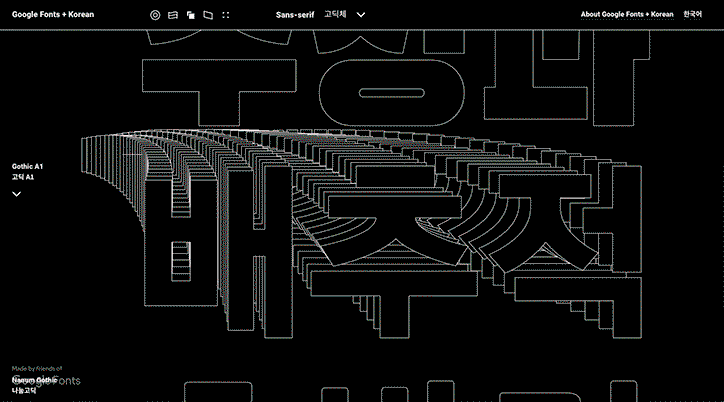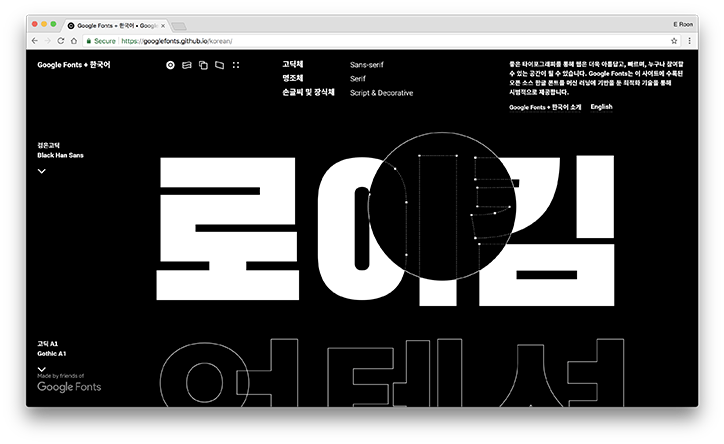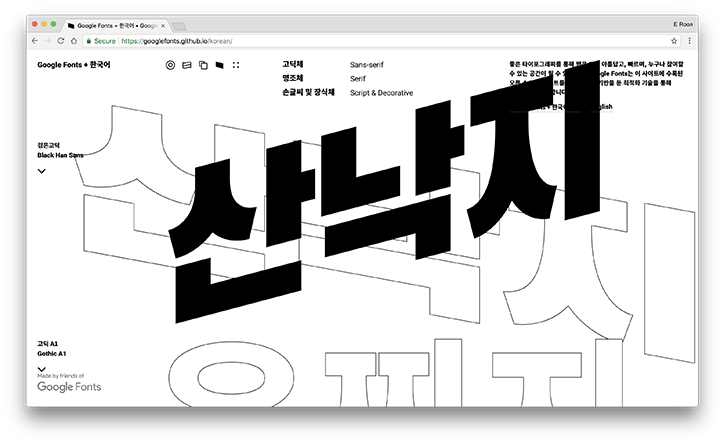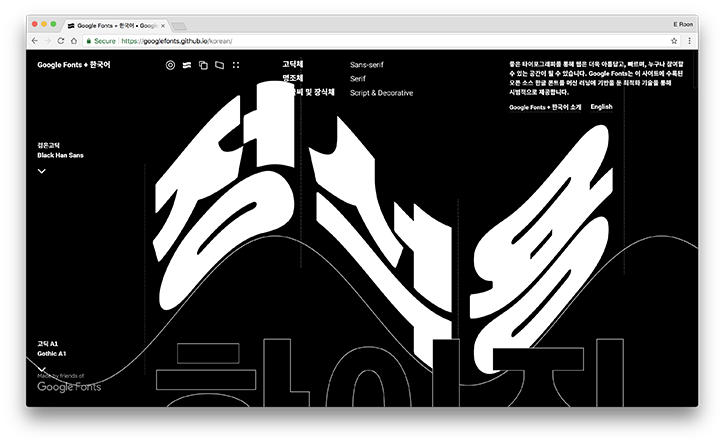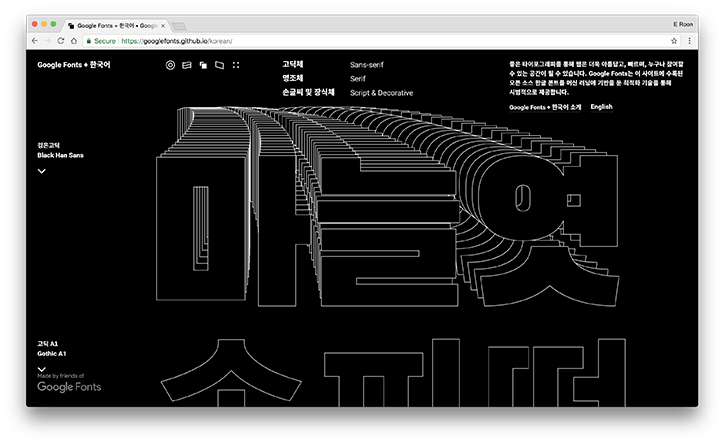
Google Fonts Korean becomes interactive by manipulating path data
Initially launched in 2010, Google Fonts is an online collection of fonts available for designers and web developers to embed on their websites, for free. Until very recently, the collection was unable to support Korean. However, Google has now devised a more efficient means of serving Chinese, Japanese and Korean (CJK) font files, which have very large character sets, resulting in large file sizes.
The Korean alphabet, Hangul, has been used since the 15th century and consists of 19 consonants, which reflect the shapes of the articulators when making the sounds, and 21 vowels, evolved from three shapes representing the sky, the earth and humans. These elements, called jamo, can then be grouped into syllabic blocks which form the letters.
In a similar manner to Chinese letters or Japanese kana, the visual balance of a jamo changes in relation to its surrounding jamo. To enable this, a Korean font usually includes every possible combination of jamo, meaning it would contain a total of 17,388 glyphs. As well as being time-consuming to develop typefaces consisting of this many glyphs, it also results in large file sizes. “For example,” reads the Google Fonts Korean website, “Google is developing the Noto fonts to support all languages, and while the Noto Latin font is 445KB, the Noto Simplified Chinese (SC) font is 15.7MB, containing a total of 44,683 glyphs.”
However, by developing a new technique which sees it scanning Korean web pages, Google was able to ascertain which characters are most likely to appear together. This informed a “subset slicing strategy” which sorts the 17,388 glyphs into around 100 slices. This means when a user sees the font on a webpage, the browser will only load the font slices required for that page, resulting in much faster loading times. In order to showcase this fact, Google got in touch with E Roon Kang of New York City-based design studio Math Practice, to create a mini-site.
Roon worked with Seoul-based data visualisation specialist, Wonyoung So, on the development of the site but the team also included Yang Jang who curated the fonts, Guhong Min, the site’s Korean editor and Hannah Son, its English editor.
Designed in monochrome, the site features the supported fonts, which, as well as being editable to display any text is interactive via a series of mouse movements and clicks. “I wanted the site to be an interactive experience, as opposed to a simple list of available Korean fonts from Google Fonts,” Roon tells It’s Nice That. As all of the featured fonts are open-source, “it was possible to have full access to manipulate their path data – gaining access to a commercial font on this level is usually prohibited through their End User License Agreement.” Roon, therefore, decided to showcase the high levels of access possible through Google Fonts.
Whereas some of the interactions highlight this accessibility, others hint at the pragmatic aspects designers consider when working with type. When scrolling on the site, users can click anywhere to swap between these interactions to use the toggles at the top of the page. Throughout the experience, there is true attention detail that even sees the site’s favicon changing as users cycle through the interactions.